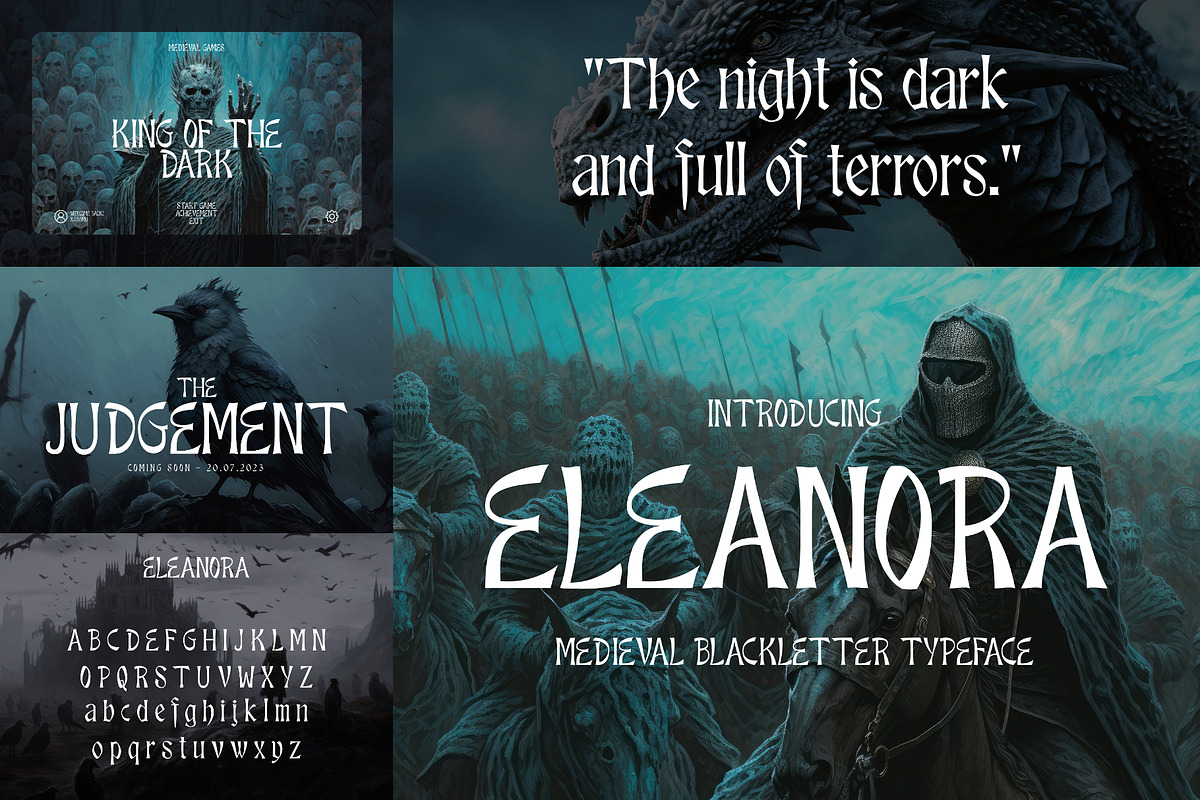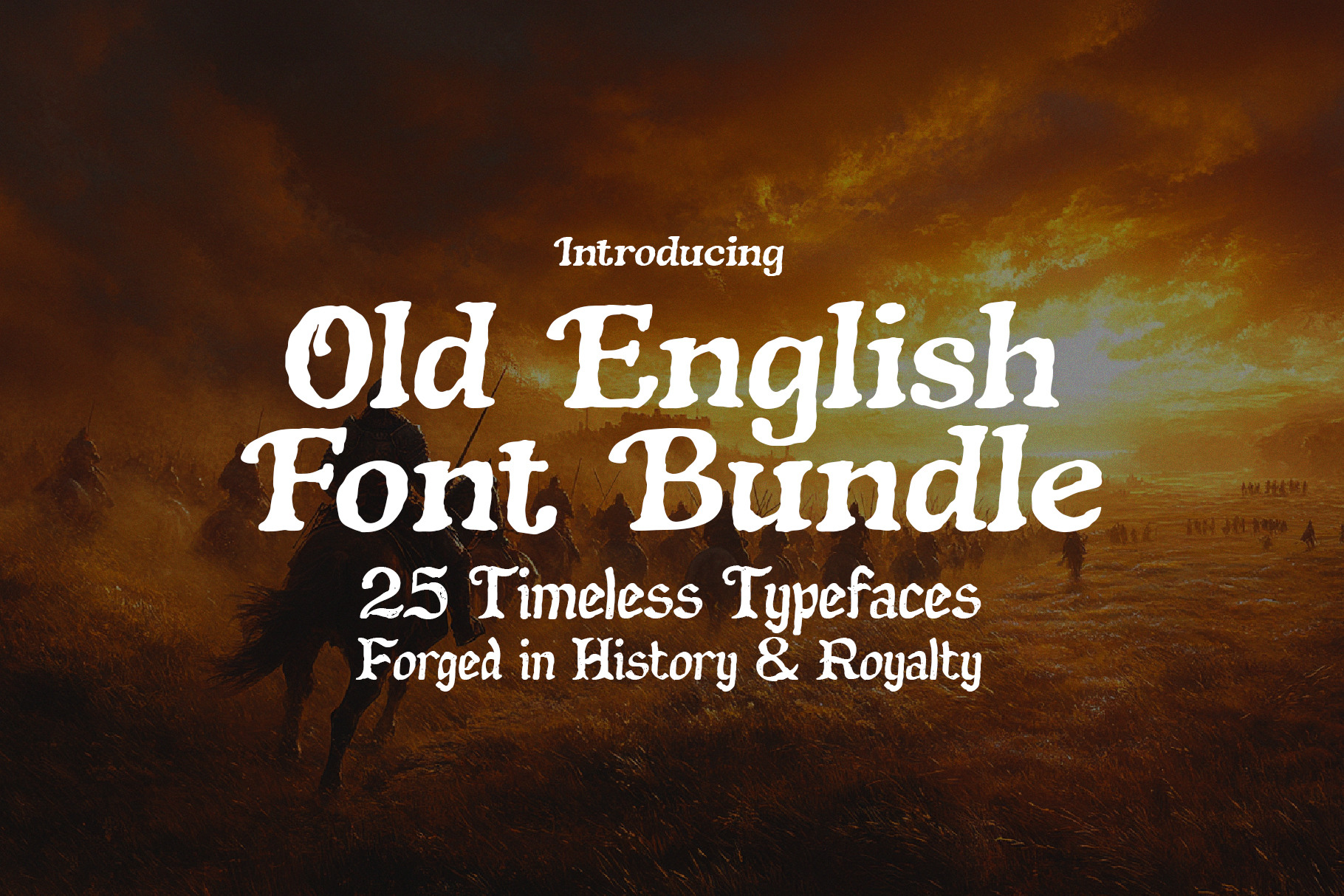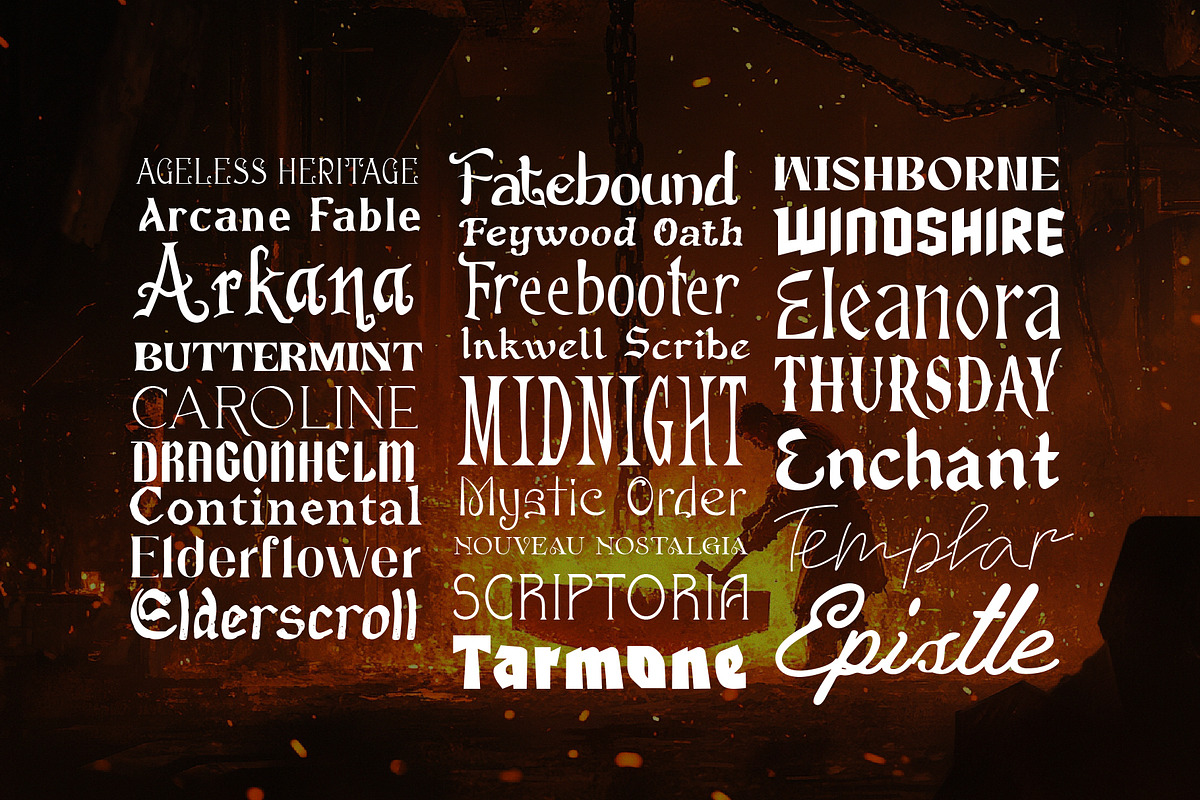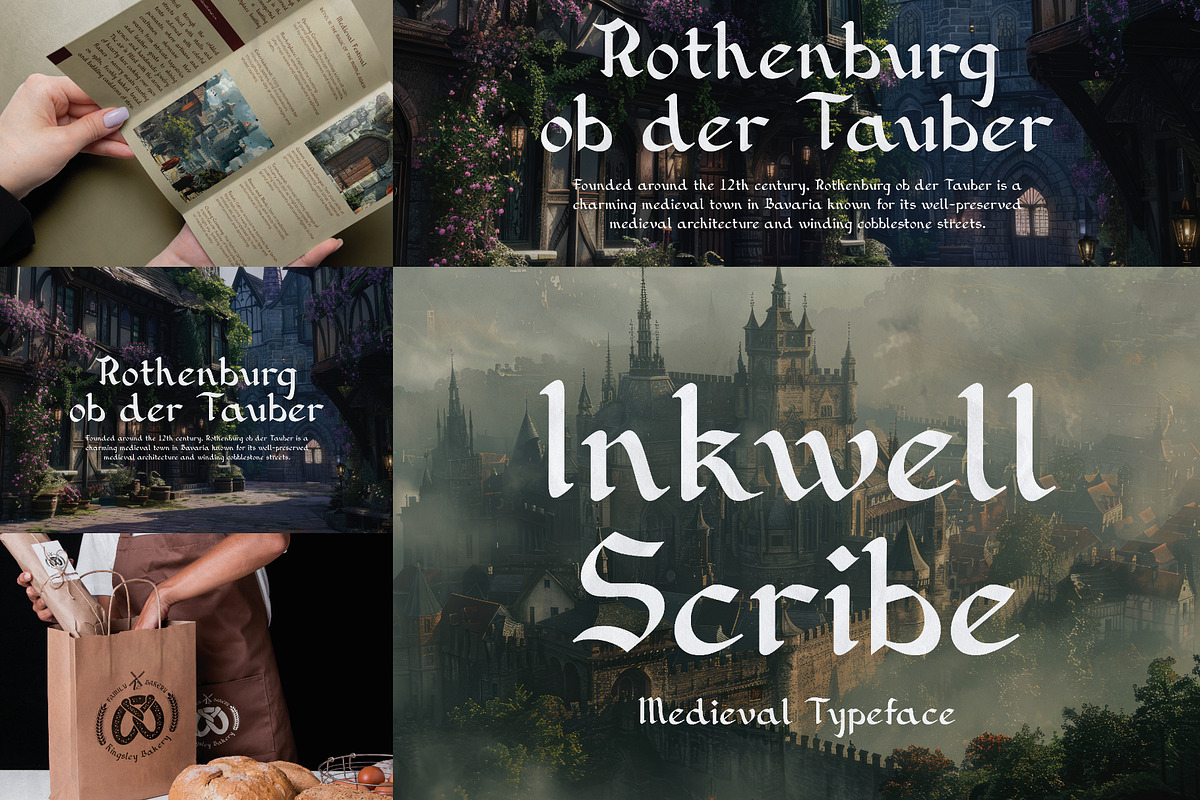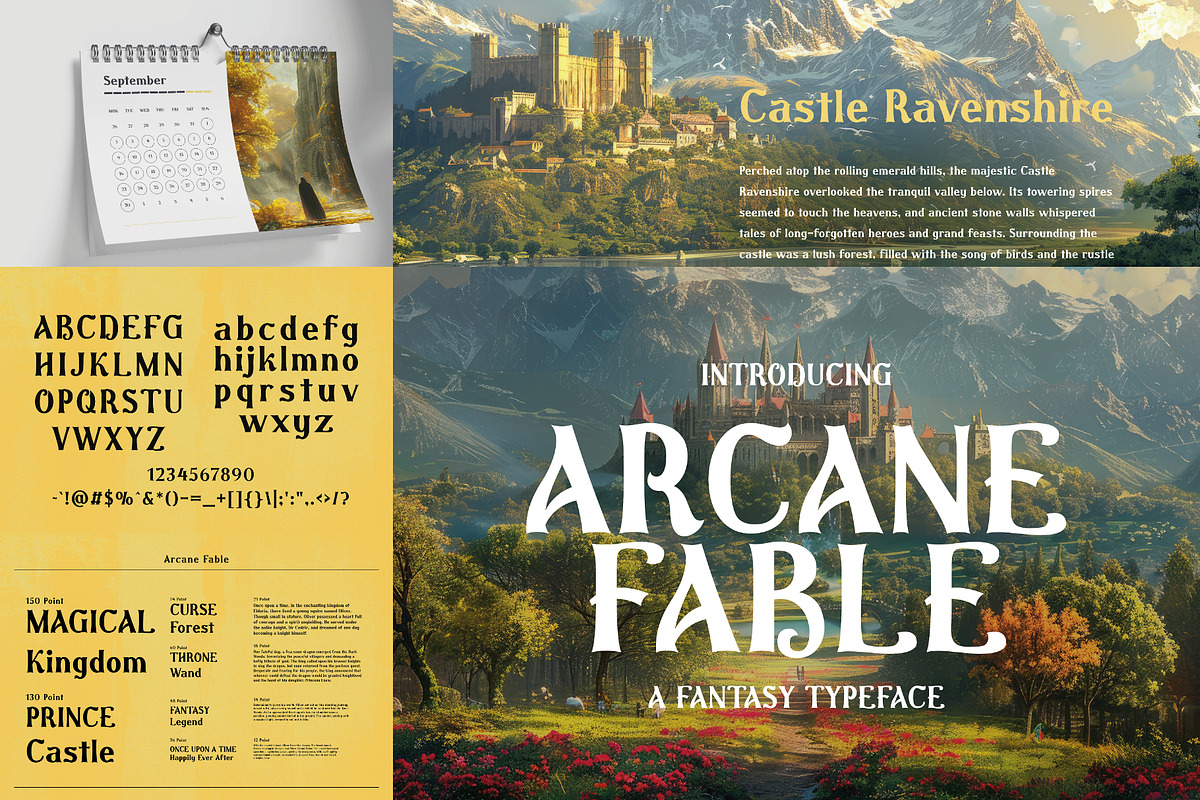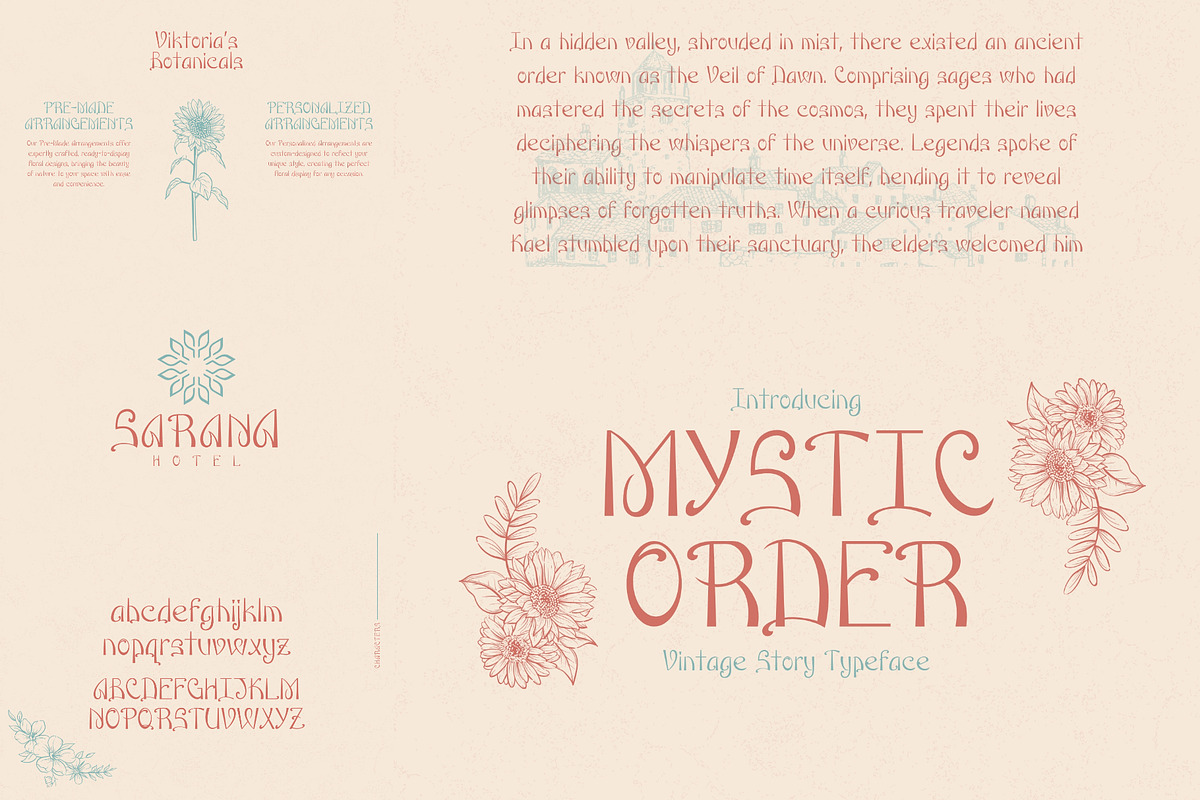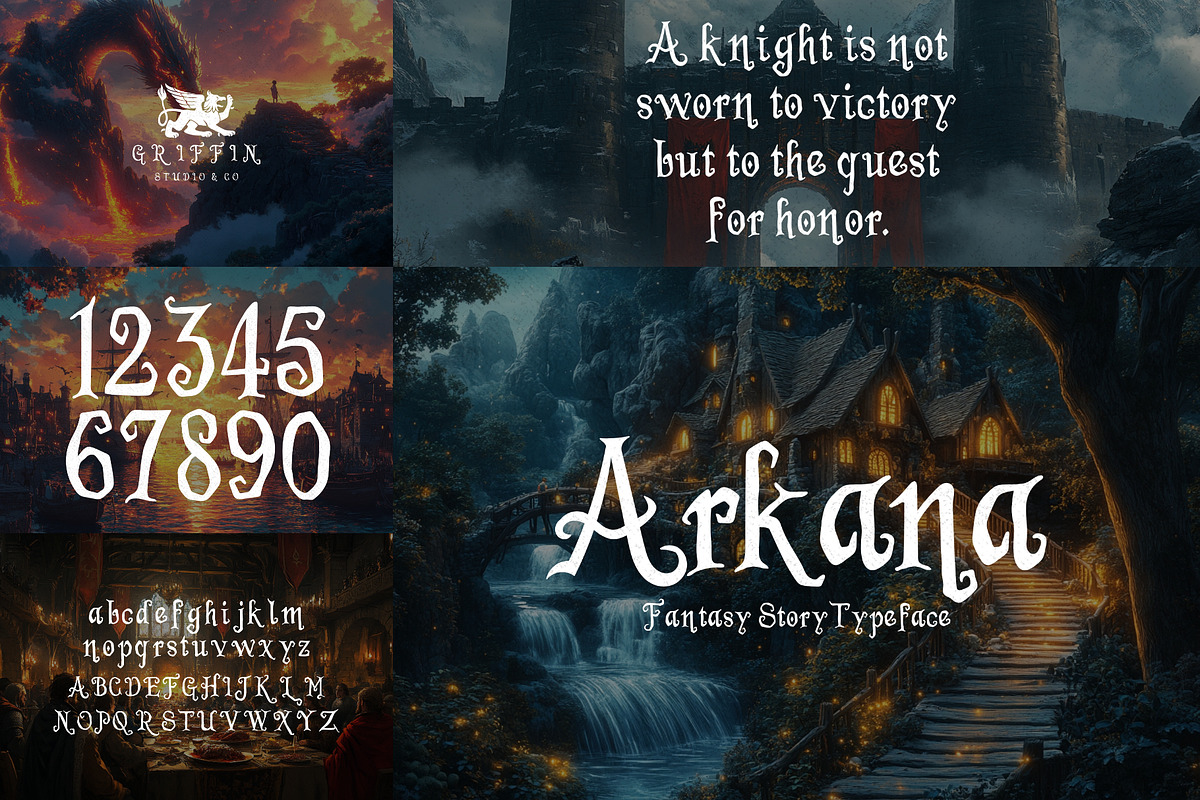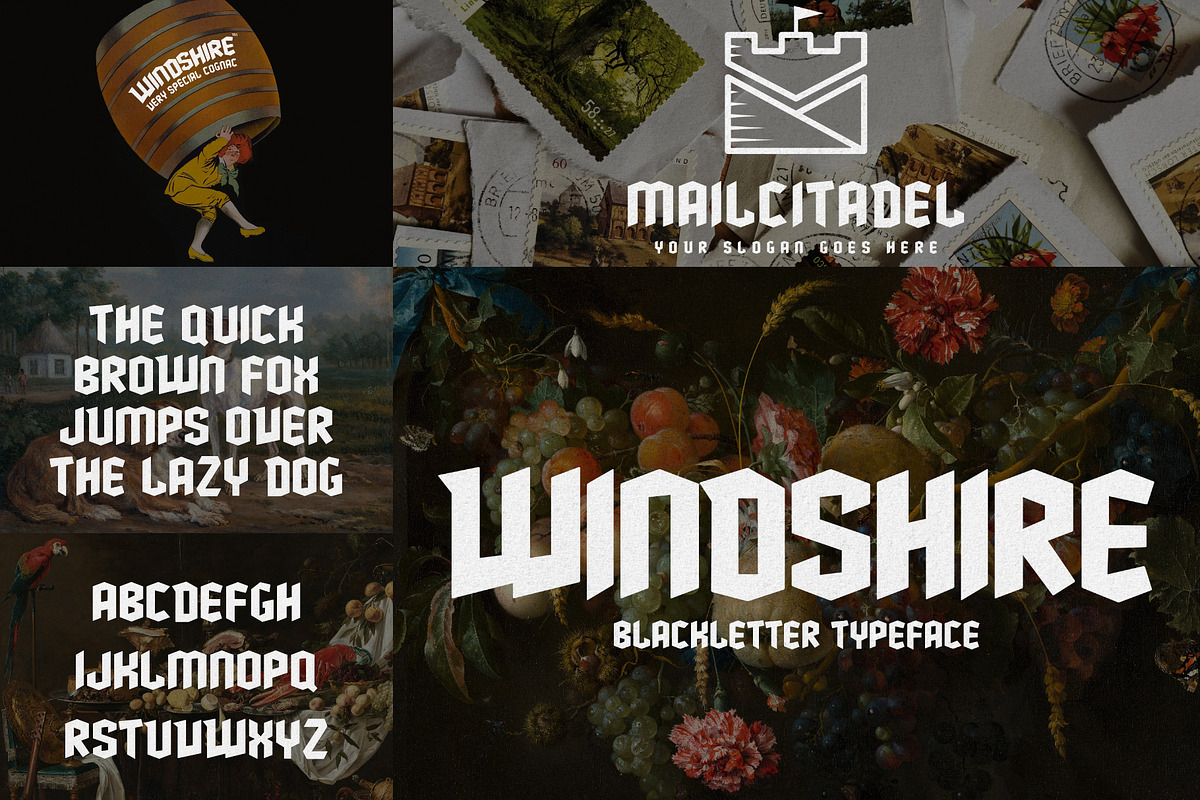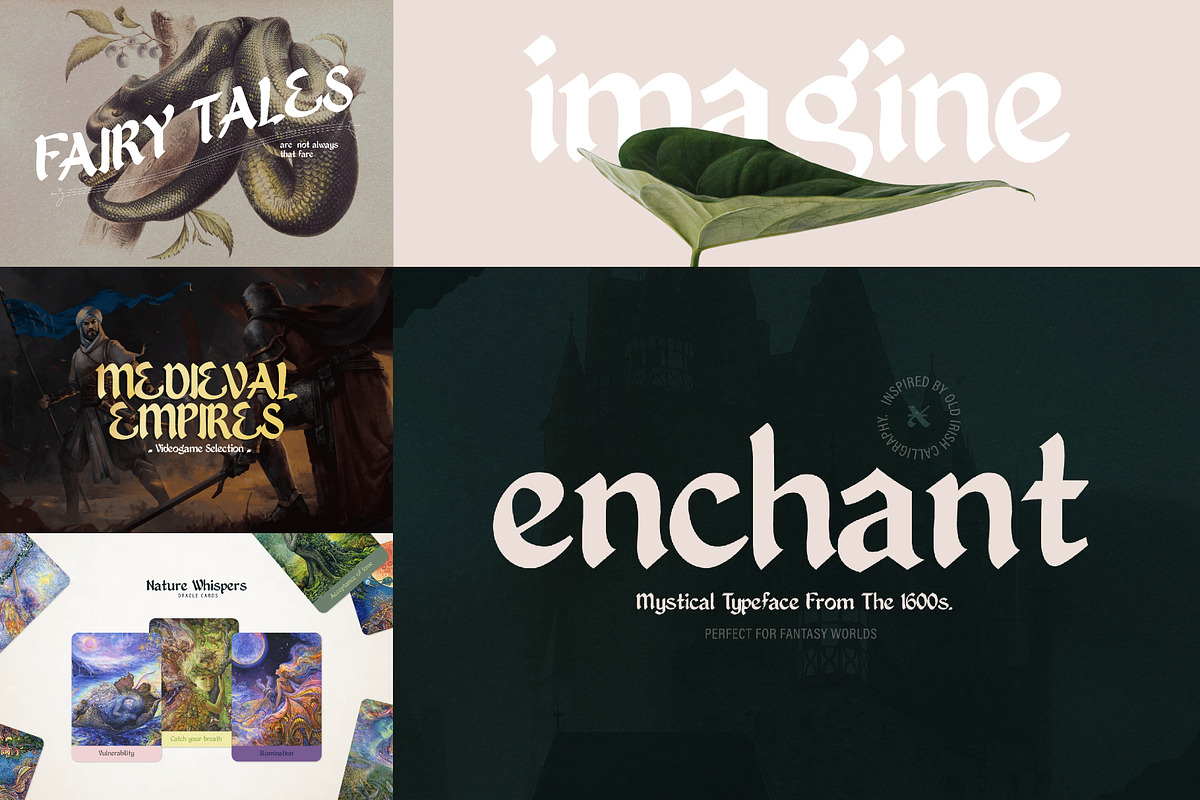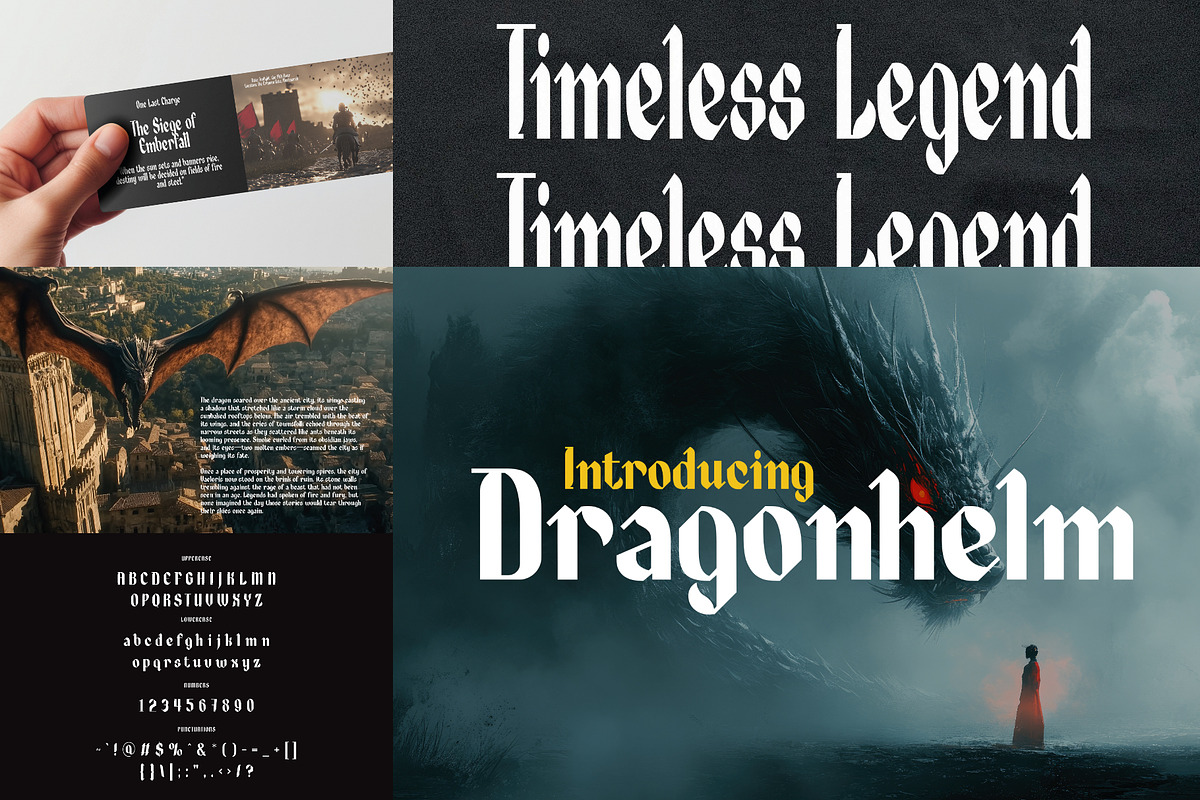
Old English Font Bundle - 25 Fonts!
Step into the grandeur of the past with The Old English Font Bundle, a legendary collection of 25meticulously crafted typefaces inspired by the age of knights, kings, and ancient manuscripts. This is more than just a font bundle; it is a portal to the medieval era, where calligraphy was an art form, and words carried the weight of empires.
- 25 Unique Old English Fonts – Each typeface is designed to embody the strength, elegance, and mystery of antique lettering.
- Authentic Medieval & Gothic Aesthetic – Perfect for branding, book covers, historical projects, posters, invitations, and more.
- Royal, Timeless, and Bold – Whether you’re crafting a fantasy novel, vintage whiskey label, or historical documentary, these fonts add instant prestige.
Unleash the power and elegance of Old English typography and give your projects the regal touch of history.